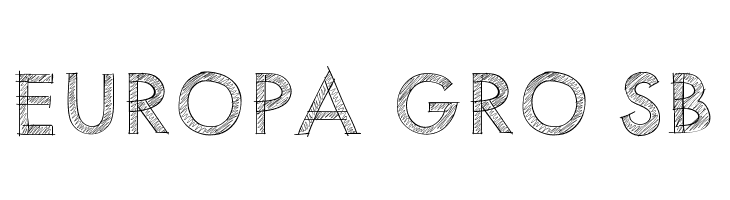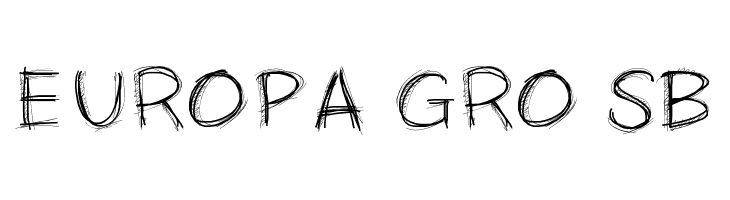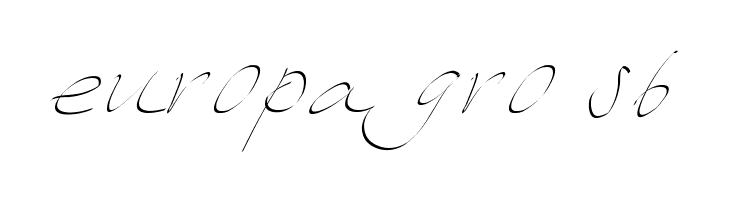
A playful, rounded script font with a casual, handwritten style.
A bold, textured font with a mosaic-like design, perfect for creative projects.
A bold, distressed font with a spooky, hand-drawn appearance.
A playful, handwritten-style font with a casual and friendly appearance.
A playful, handwritten-style font with a whimsical and friendly appearance.
A playful, casual handwritten font with uneven strokes and a whimsical style.
A hand-drawn, textured font with a scratched, edgy appearance.
A hand-drawn, textured font with a scratched appearance.
A scratchy, hand-drawn font with a textured, edgy appearance.
A sophisticated script font with elegant swashes and flowing cursive letterforms.